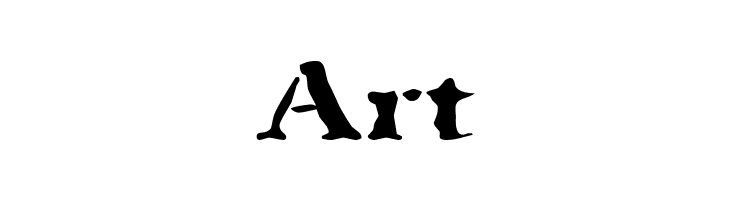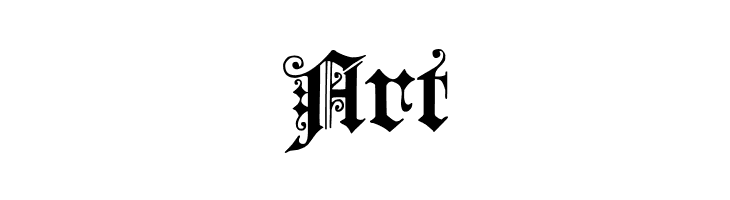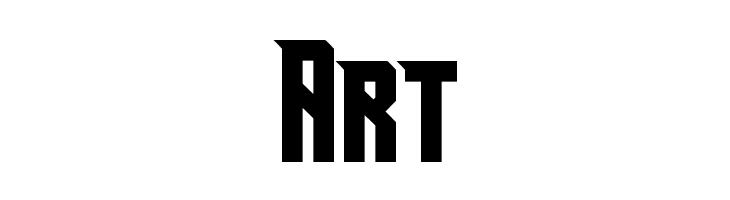
A playful, bold font with rounded edges and a comic book style.
A bold, playful font with thick, irregular strokes and a distressed, handcrafted appearance.
An ornate Gothic script with intricate flourishes and bold characters.
An ornate, Baroque-inspired decorative font with intricate floral patterns.
A bold, Gothic-style font with intricate flourishes and high contrast.
A bold, angular font with a pirate-themed, decorative style.
A playful set of ghost-like characters with various facial expressions.
A dramatic, dripping font with a horror-themed aesthetic.